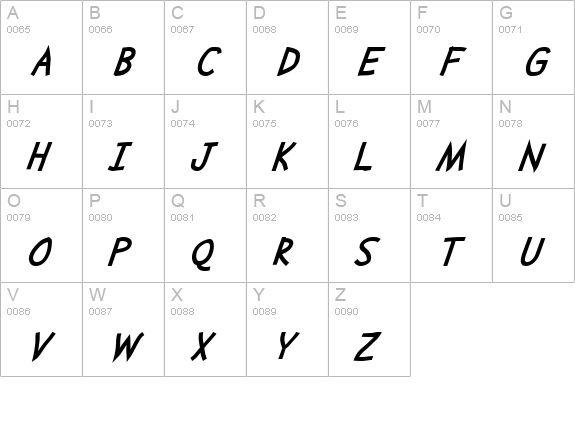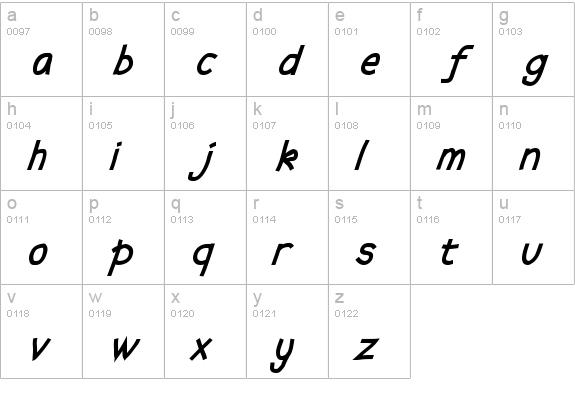
Abscissa Bold Italic Font Details
Abscissa Bold Italic is a strong, high-contrast, italic variant in the Abscissa typeface family \xE2\x80\x94 well suited to headlines, attention-grabbing titles, and strong calls-to-action.
Introducing Abscissa Bold Italic, a sleek and modern font that exudes sophistication and style. With its bold and italic design, Abscissa commands attention and adds a touch of elegance to any project. The strong, clean lines of this typeface make it perfect for headlines, titles, and other prominent text elements. What's even better is that Abscissa Bold Italic is available for free download at FontsMarket.com. Whether you're working on a branding project, a poster design, or anything in between, this versatile font is sure to make a statement. Embrace the boldness and versatility of Abscissa Bold Italic in your next design endeavor and watch your creations come to life.